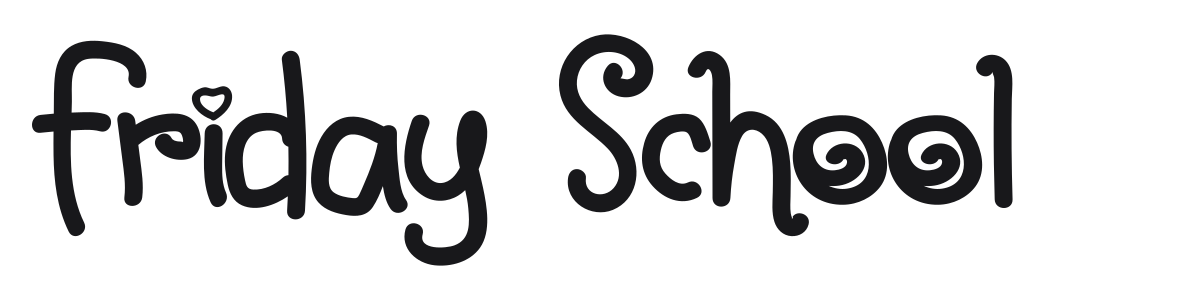
Friday School
Friday School is a bold, bubbly handwritten font with chunky rounded strokes and a casual, childlike energy. Letters bounce with personality and feature playful circular details that make it feel drawn by hand in the best possible way. It suits display work aimed at young audiences, cheerful branding, or any project that needs warmth without taking itself too seriously.